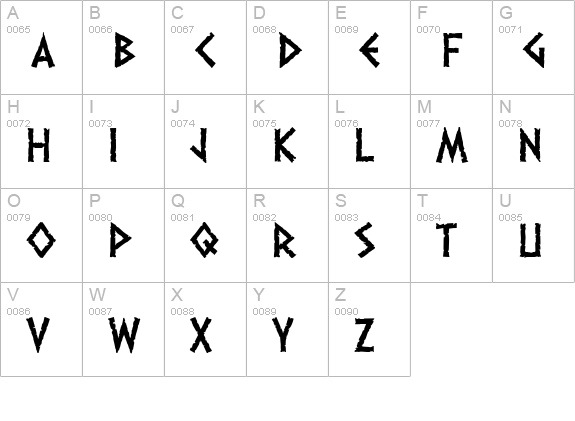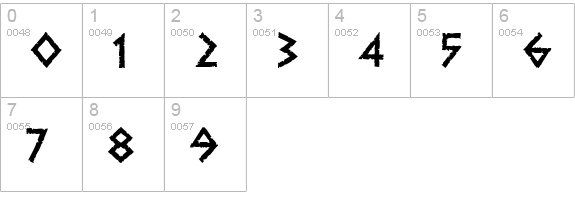
Dalek Font Details
The Dalek font is a stunning display font that is sure to captivate and amaze. Inspired by the iconic Dalek creatures from the beloved science fiction series, this font perfectly captures their unique and menacing aesthetic. With its sharp edges and futuristic design, the Dalek font is perfect for creating eye-catching headlines, posters, and logos that demand attention. Its clean and well-defined letterforms make it incredibly versatile, allowing it to be used for both modern and retro-inspired designs. One of the best things about the Dalek font is that it is freely available to download at FontsMarket.com. This means that you can use this incredible font in your personal and commercial projects without having to worry about any licensing fees or restrictions. It's a fantastic resource for designers, allowing them to add a touch of sci-fi flair to their work without breaking the bank. Whether you're a fan of the Dalek creatures or simply appreciate the bold and distinctive style of this font, the Dalek font is a must-have for any designer's toolkit. So why wait? Head over to FontsMarket.com and download this incredible font for free today. Unleash your creativity and let the Dalek font take your designs to new heights.